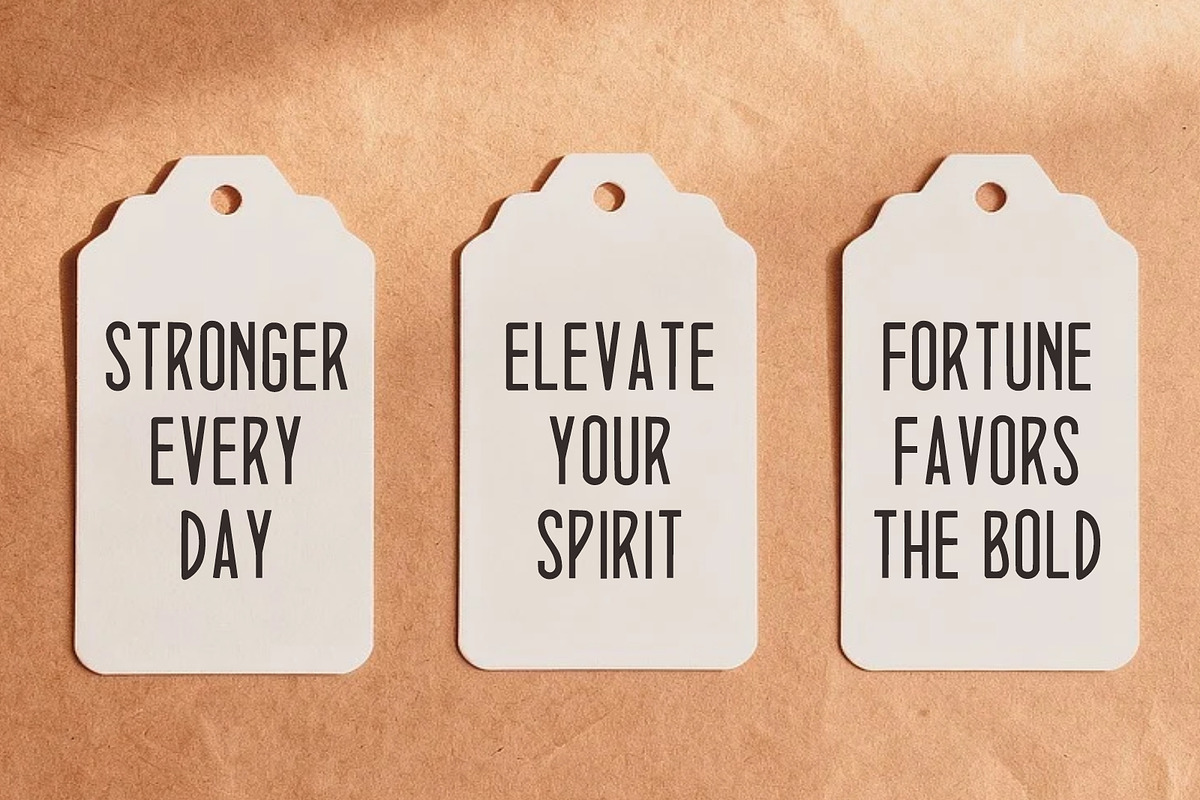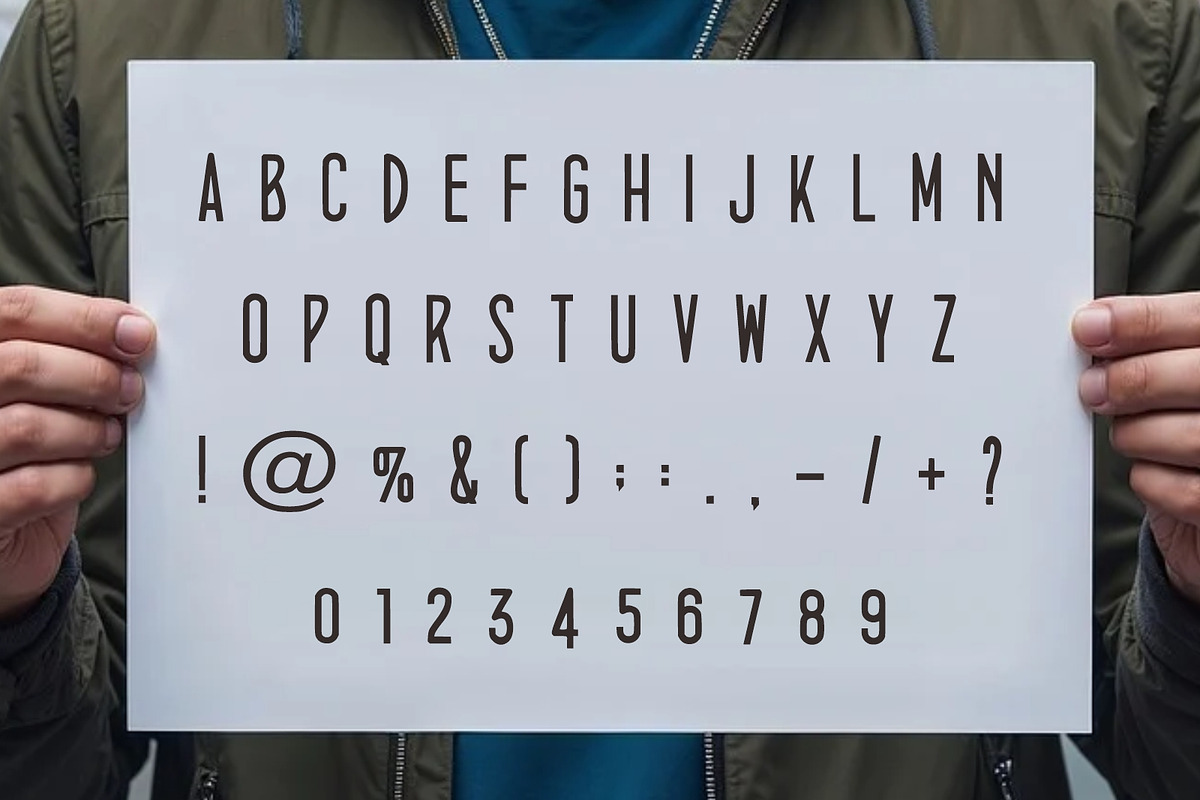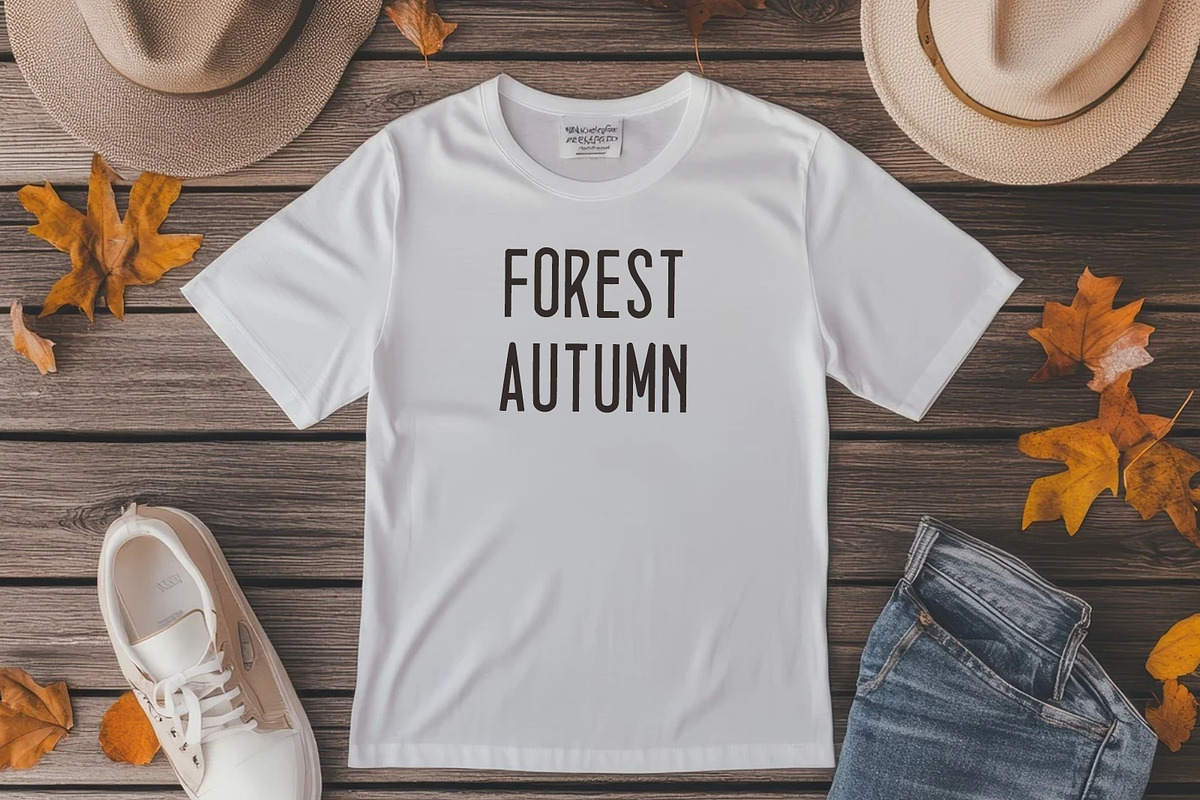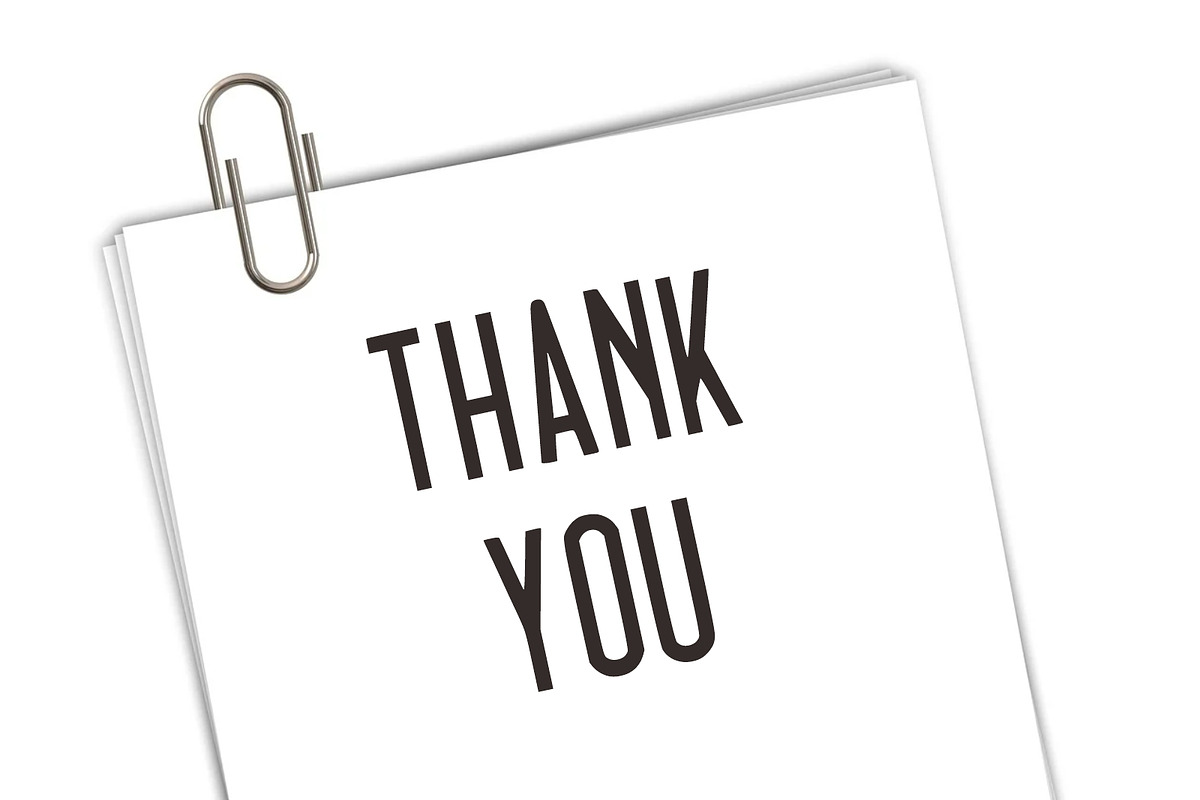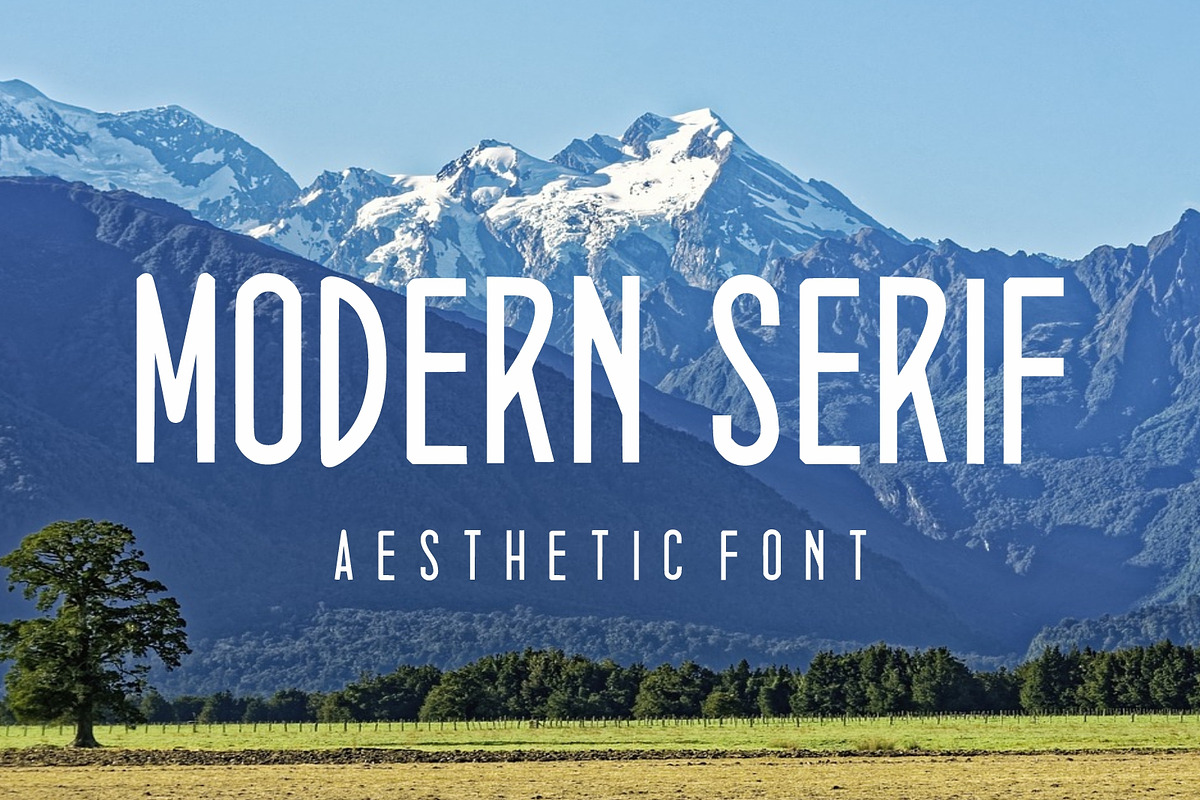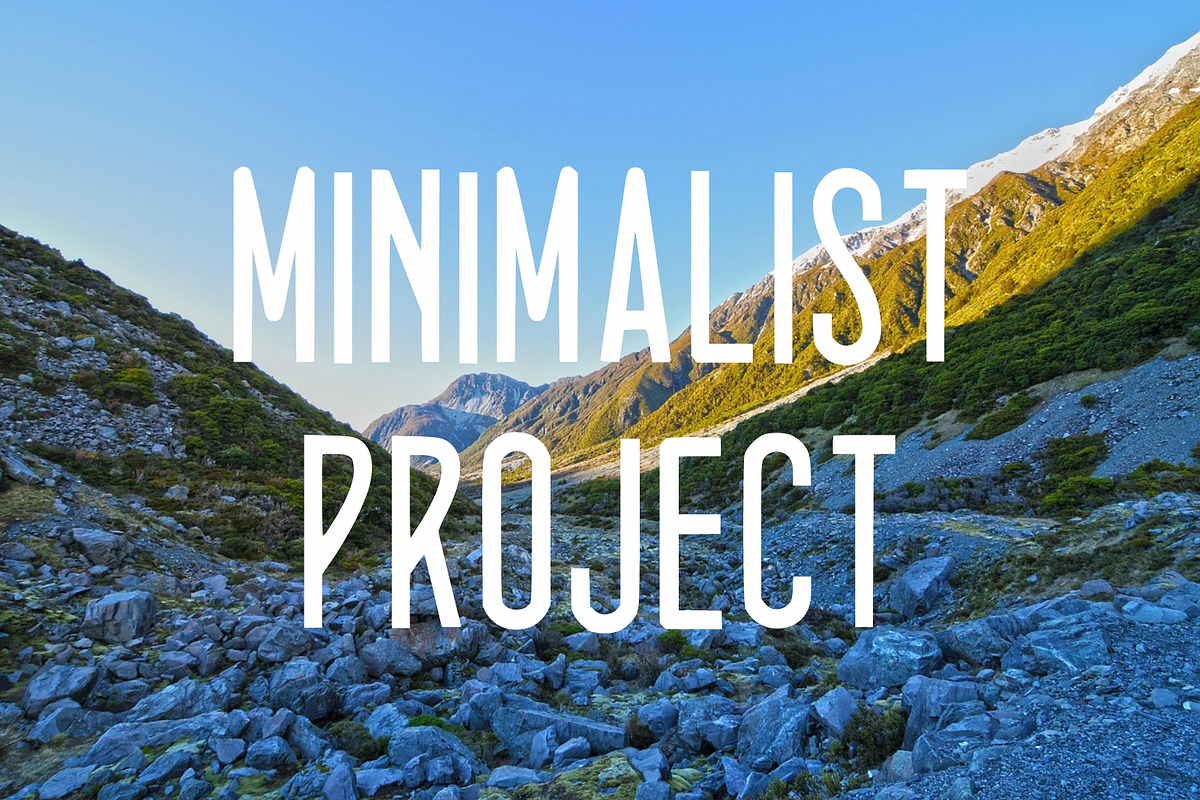
Modern Serif – Aesthetic
Modern Serif is a contemporary aesthetic display typeface designed to bring a sophisticated and artistic feel to your projects. With its tall, narrow proportions and bold yet elegant appearance, this font creates a strong visual statement while maintaining a clean and modern look.
Perfect for designers looking to create eye-catching typography for branding, fashion, posters, magazines, packaging, logos, headlines, album covers, invitations, and social media content.
Its distinctive character makes Modern Serie especially suitable for minimalist, editorial, luxury, travel, lifestyle, and contemporary design projects.
Modern condensed display style
Tall and elegant letterforms
Clean contemporary aesthetic
Strong visual impact
Great for headlines and large typography
Suitable for branding and logo concepts
Perfect for posters and editorial designs
Works well for fashion and lifestyle projects
Recommended Uses
Logo & Branding
Posters
Magazine & Editorial Design
Fashion Branding
Packaging
Advertising
T-Shirt Design
Album & Cover Artwork
Invitations
Headlines & Titles
Travel & Lifestyle Designs
Font Style